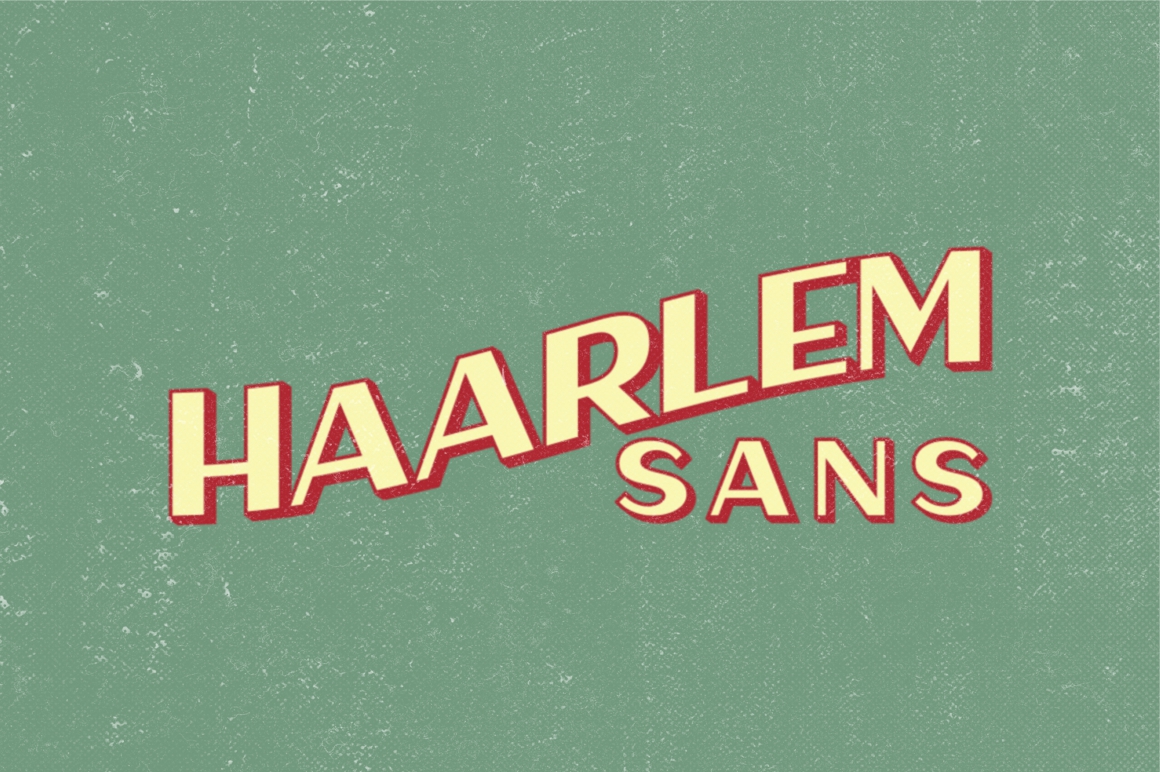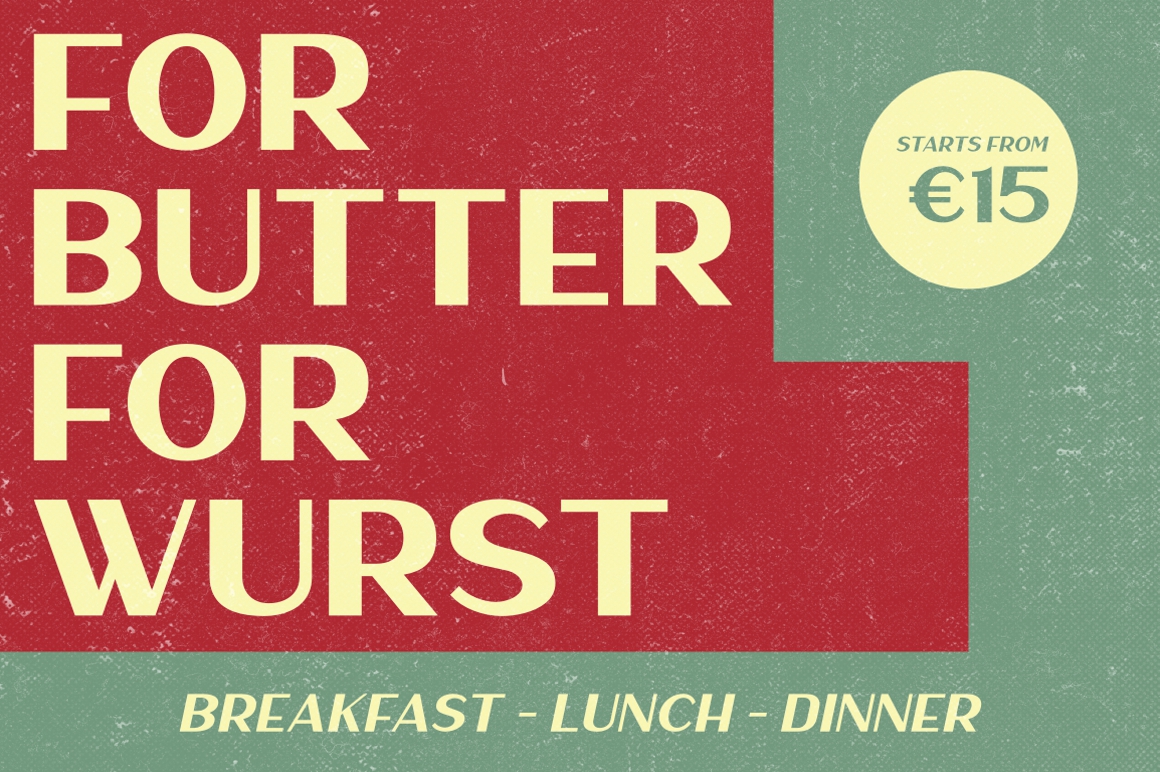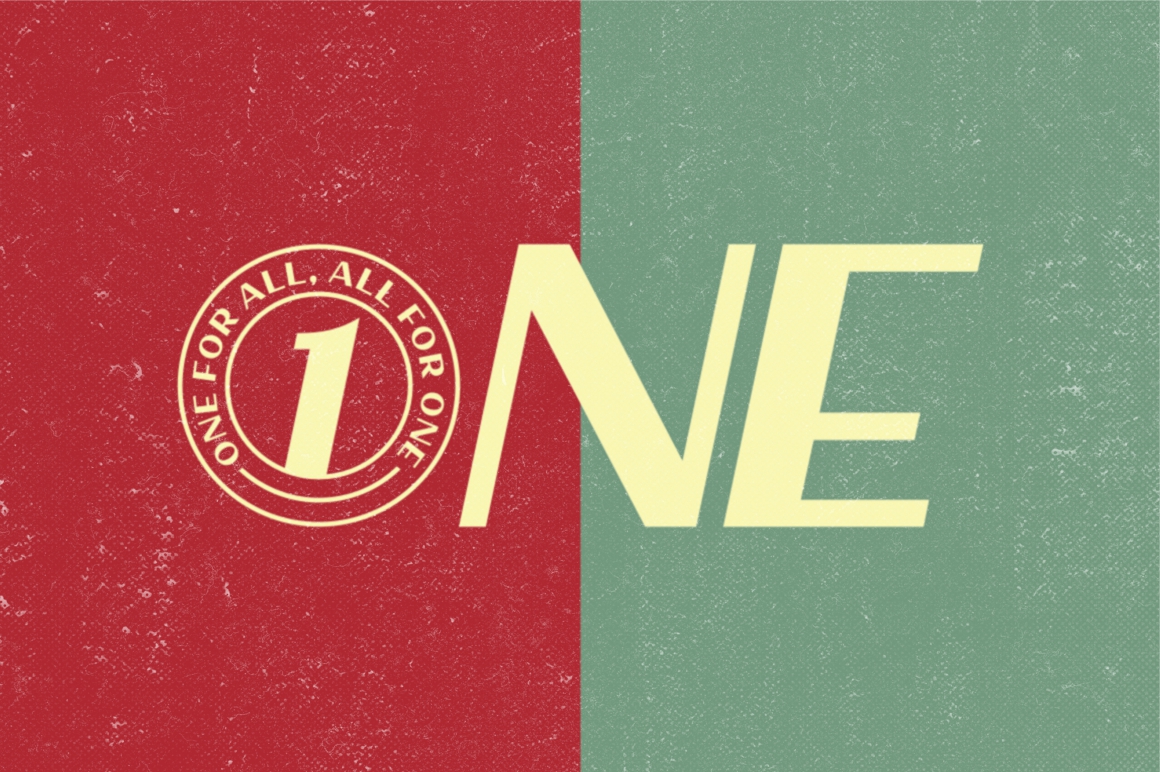
Haarlem Sans Font
About the Haarlem Sans Font
Experience the unique personality of Haarlem Sans Font, a font designed for impact. Haarlem Sans is a wide sans-serif font with a touch of classic and art-deco style. Inspired by the calm and uniqueness of Haarlem, a town in the Netherlands, mixed with the old style letters that are used in vintage advertisements (product packaging, posters, etc).
Its bold and wide form makes him (yes, he’s a he) suits best as a space killer.
– Multilingual supports.
– Alternate characters available.
– Available in two styles; Regular and Italic,
Haarlem Sans’ bold, wide forms excel in headlines, short display text, and branding applications where a strong, confident presence is desired. It’s ideal for logos, posters, and packaging designs requiring a vintage-inspired yet modern feel. However, its weight and width make it less suitable for body text or UI elements where readability over long passages is crucial.
Its art deco influences lend themselves well to projects with a sophisticated or luxurious aesthetic. Consider pairing Haarlem Sans with a clean sans-serif like Futura for a balanced contrast, or a more delicate serif like Garamond for a touch of classic elegance. For a bolder statement, a geometric sans-serif like Montserrat could create visual impact.
The font exudes a confident and sophisticated personality, making it perfect for brands aiming for a retro yet contemporary image. The alternate characters provide flexibility for creative applications, allowing for bespoke solutions within this bold, classic framework.
Haarlem Sans Font Usage Examples
Haarlem Sans Font Example